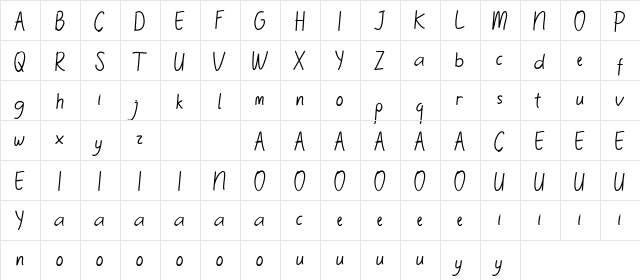
TheBillieMonlly DEMO Sans
| Style | Sans |
| Foundry | edric studio |
| Designer | Saila - Fahri F F |
Design Context for TheBillieMonlly DEMO Typeface
TheBillieMonlly DEMO offers clean, dependable letterforms without strong stylistic allegiance, making it a practical choice for designers who need flexibility.